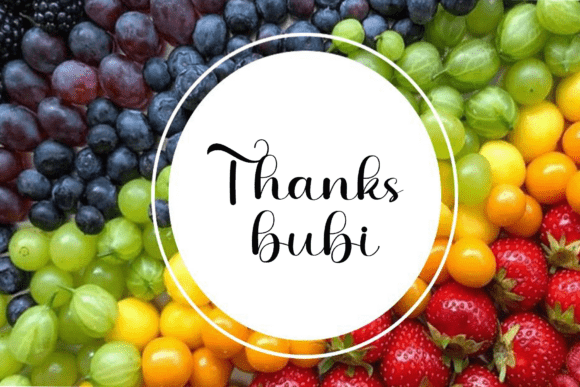
The Quest for the Perfect Font: Discovering Fruity Juice
I’ll never forget the time I was working on a custom sublimation design project for a client’s boutique branding. I had all the elements ready – the colors, the graphics, the layout – but I was stuck on one thing: the font. I wanted something that exuded elegance, femininity, and a touch of romance. After hours of scrolling through font libraries, I stumbled upon Fruity Juice, a beautiful handwritten script font that stole my heart.
A First Impression: What Makes Fruity Juice Special
Fruity Juice is a modern, stylized handwritten script font that features smooth, fluid strokes and lovely ornamental curves. Its consistent weight and clean connections ensure excellent legibility, making it perfect for a variety of design projects. Here are some of the things I love about Fruity Juice:
- ✨ Elegant and feminine touch: Fruity Juice adds a touch of sophistication to any design project.
- ✅ Highly legible: The font’s clean connections and consistent weight make it easy to read.
- 💫 Versatile: Fruity Juice is perfect for custom sublimation designs, boutique branding, personalized gifts, and custom stationery.
- 🎨 Beautifully functional: The font’s stylized curves and ornamental details make it a joy to work with.
Honest Review: The Not-So-Perfect Font
While Fruity Juice is an amazing font, it’s not without its quirks. Here are a few things to keep in mind:
- 🤔 Limited use in formal or traditional designs: Fruity Juice’s elegant and feminine touch may not be suitable for more formal or traditional design projects.
- ⚠️ May not work well in small sizes: As with many script fonts, Fruity Juice may lose its elegance and legibility when used in very small sizes.
The Story Behind Fruity Juice
Fruity Juice was designed by a team of typographers who wanted to create a font that exuded elegance and femininity. Inspired by the smooth curves of fruit and the fluid strokes of handwriting, Fruity Juice is a modern take on traditional script fonts.
| Font Name | Fruity Juice Font |
| Author | pinkmeca |
| What is Fruity Juice font best used for? | Fruity Juice is perfect for custom sublimation designs, boutique branding, personalized gifts, custom stationery, and any project that needs a clean, highly stylized, and beautifully functional handwritten script. |
| Does Fruity Juice support OpenType features? | Yes, Fruity Juice supports OpenType features, including ligatures, stylistic alternates, and swashes. |